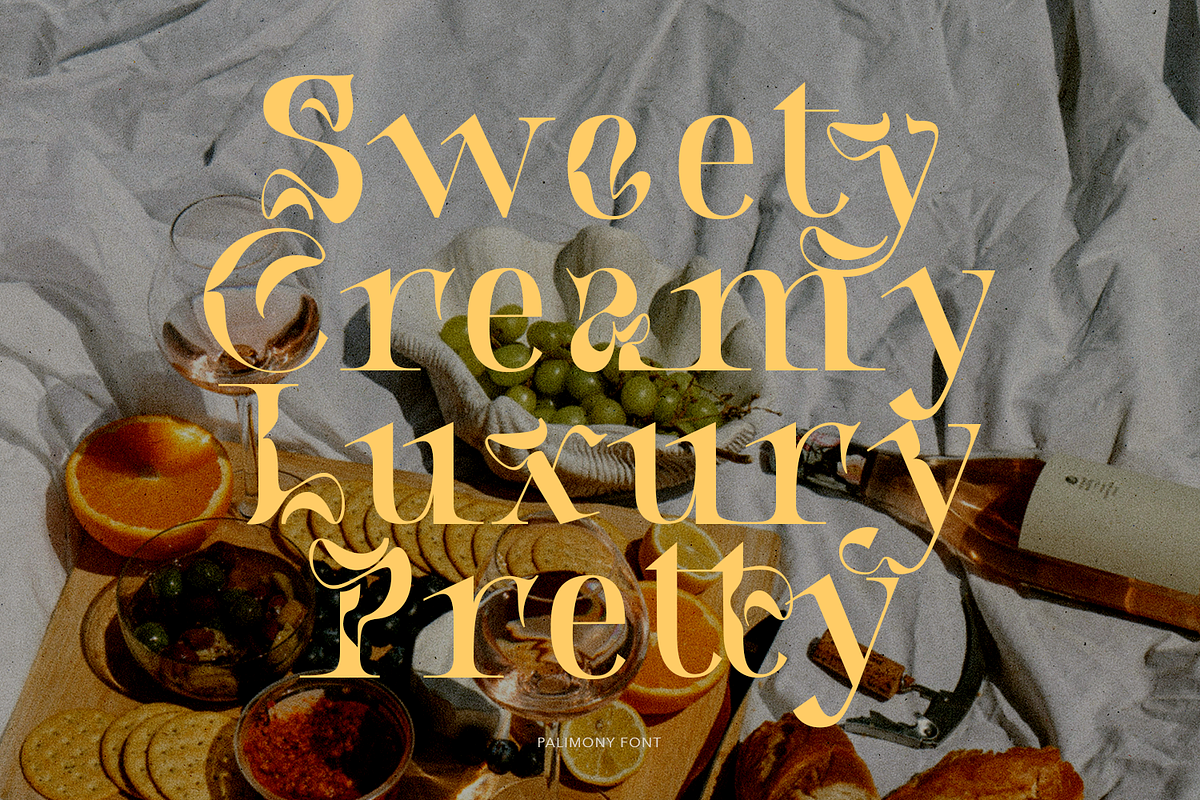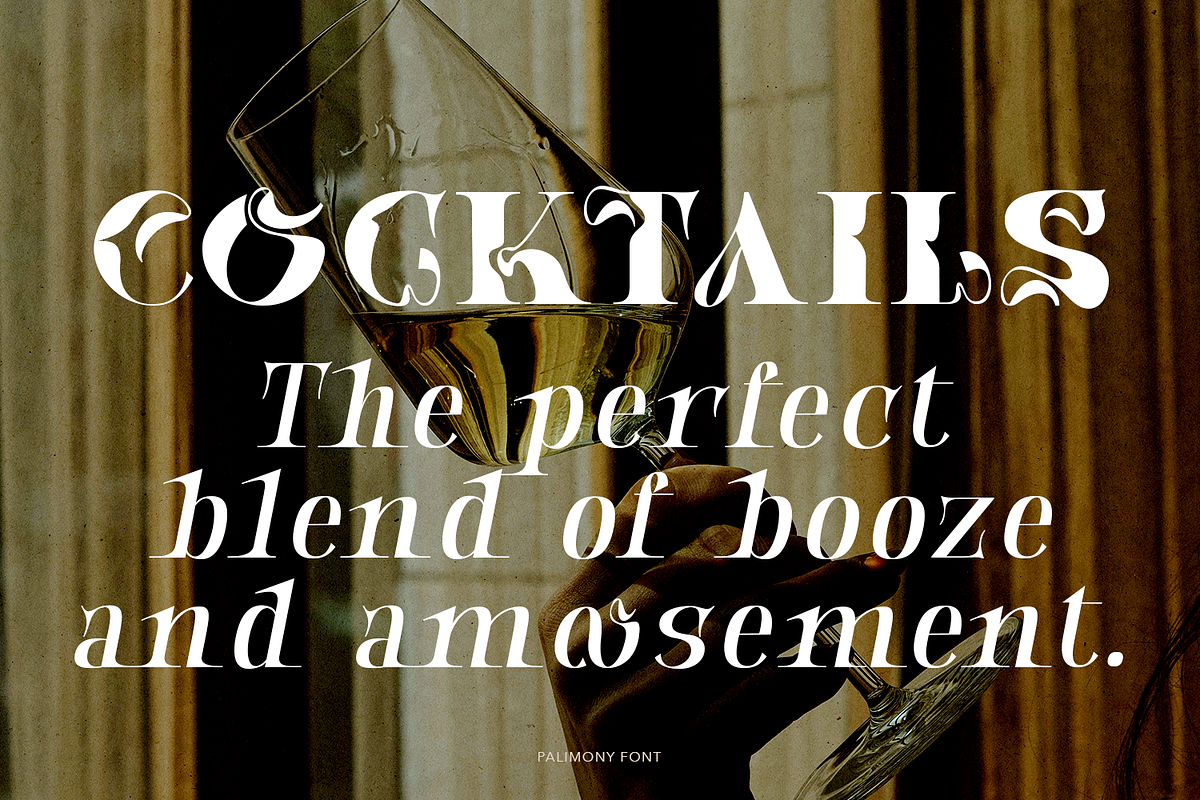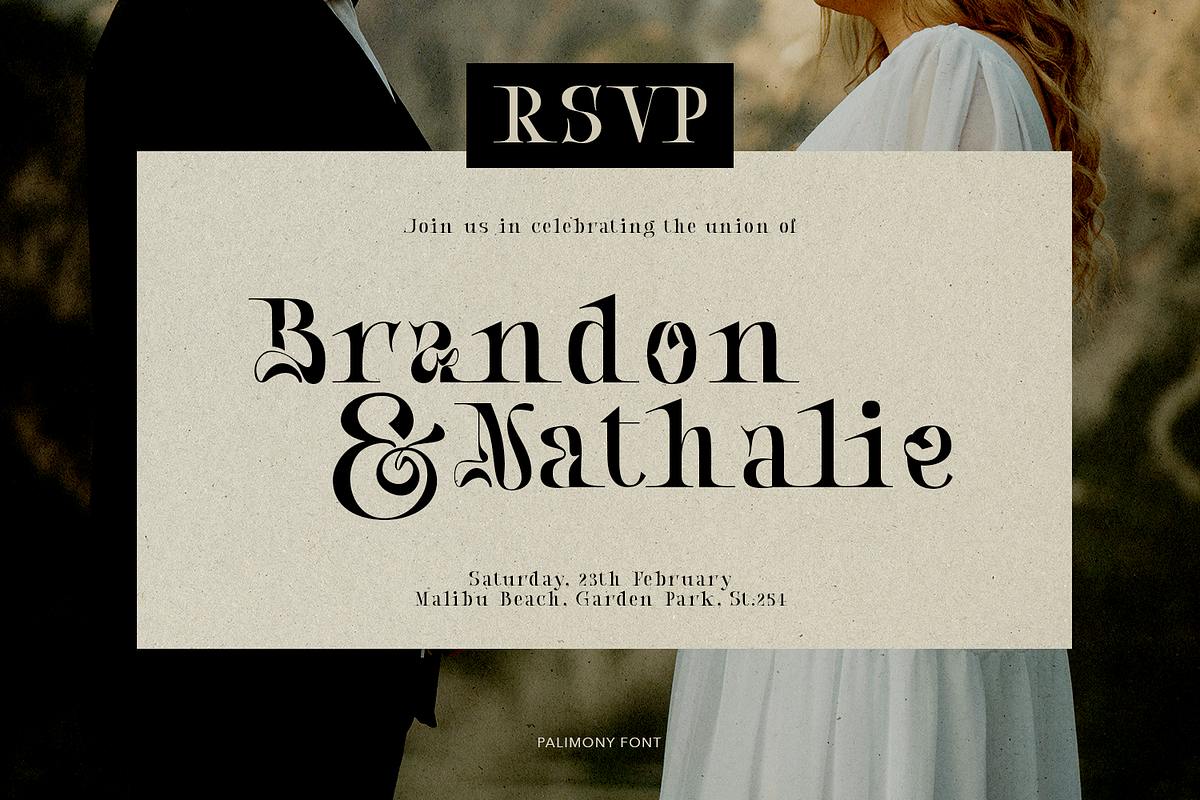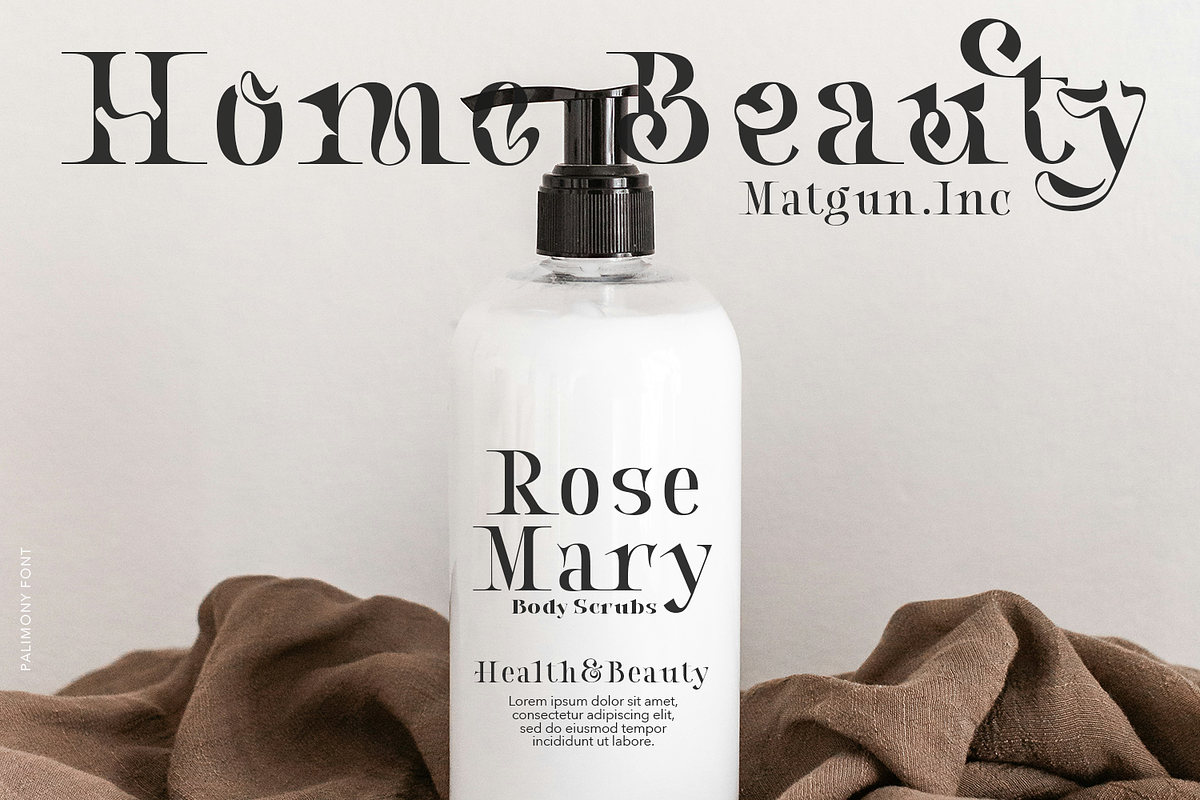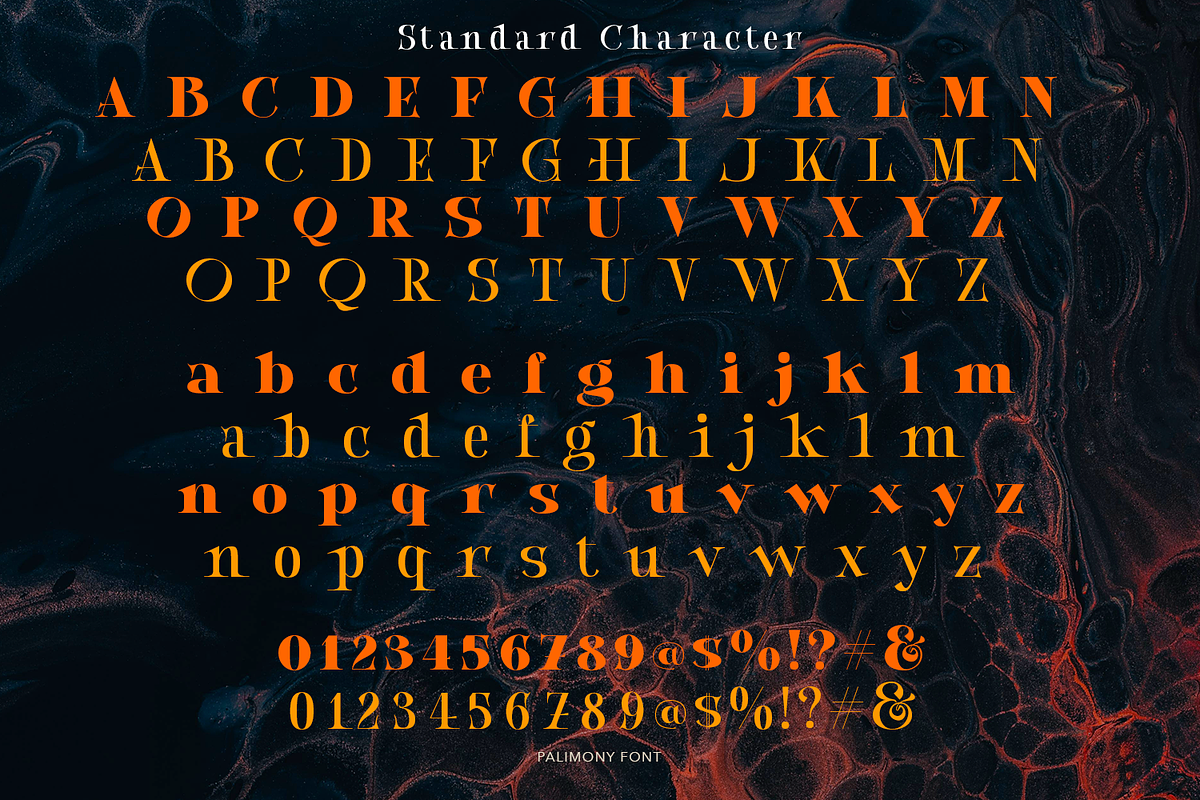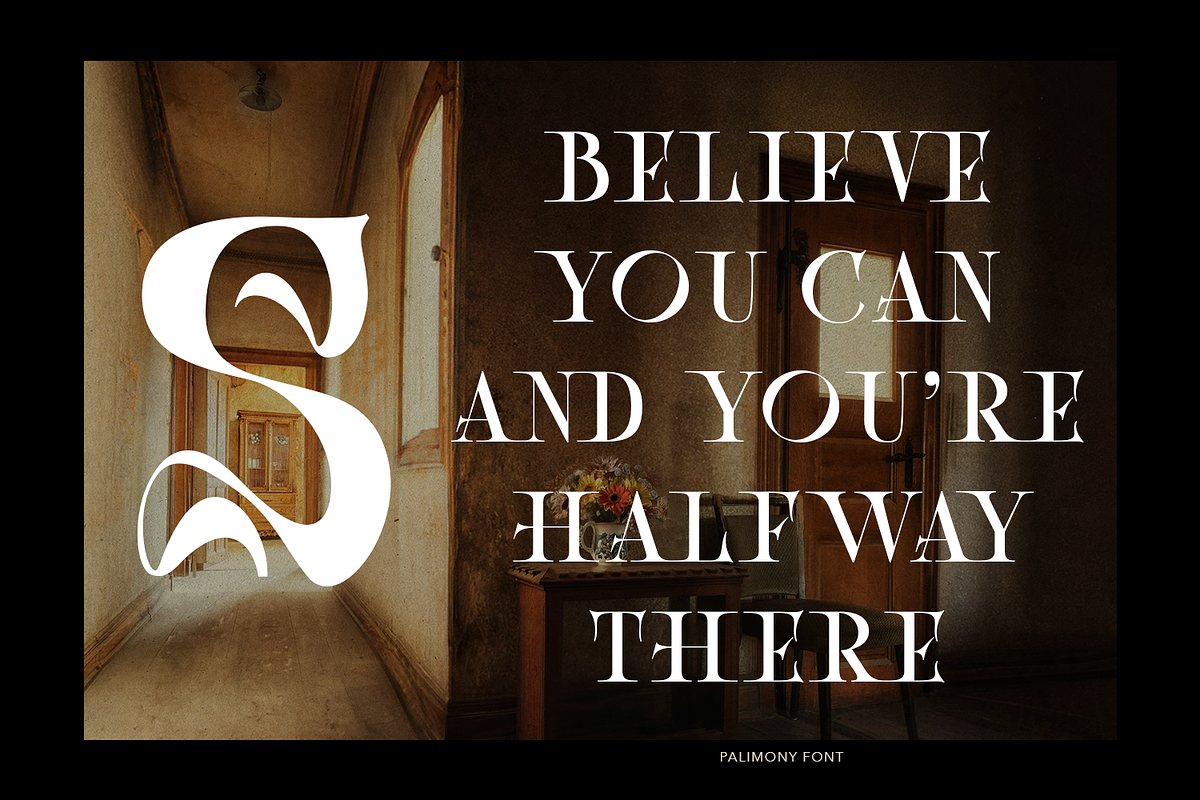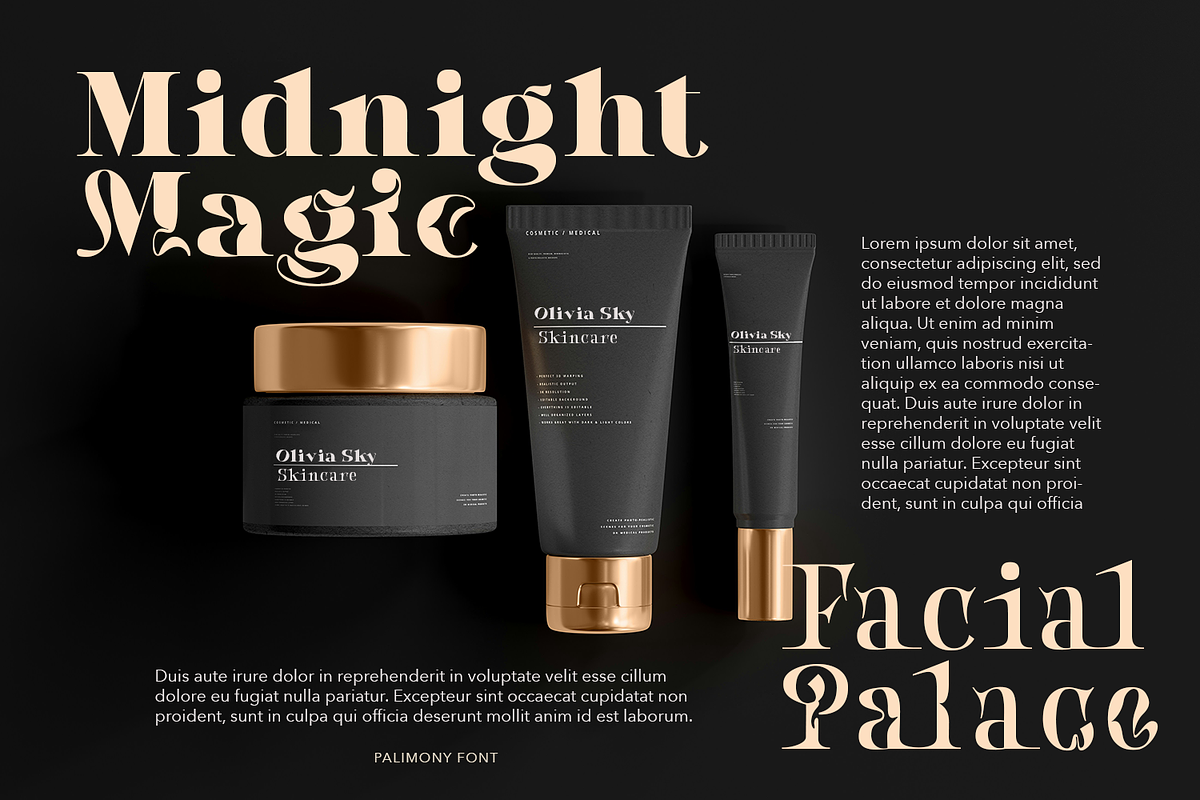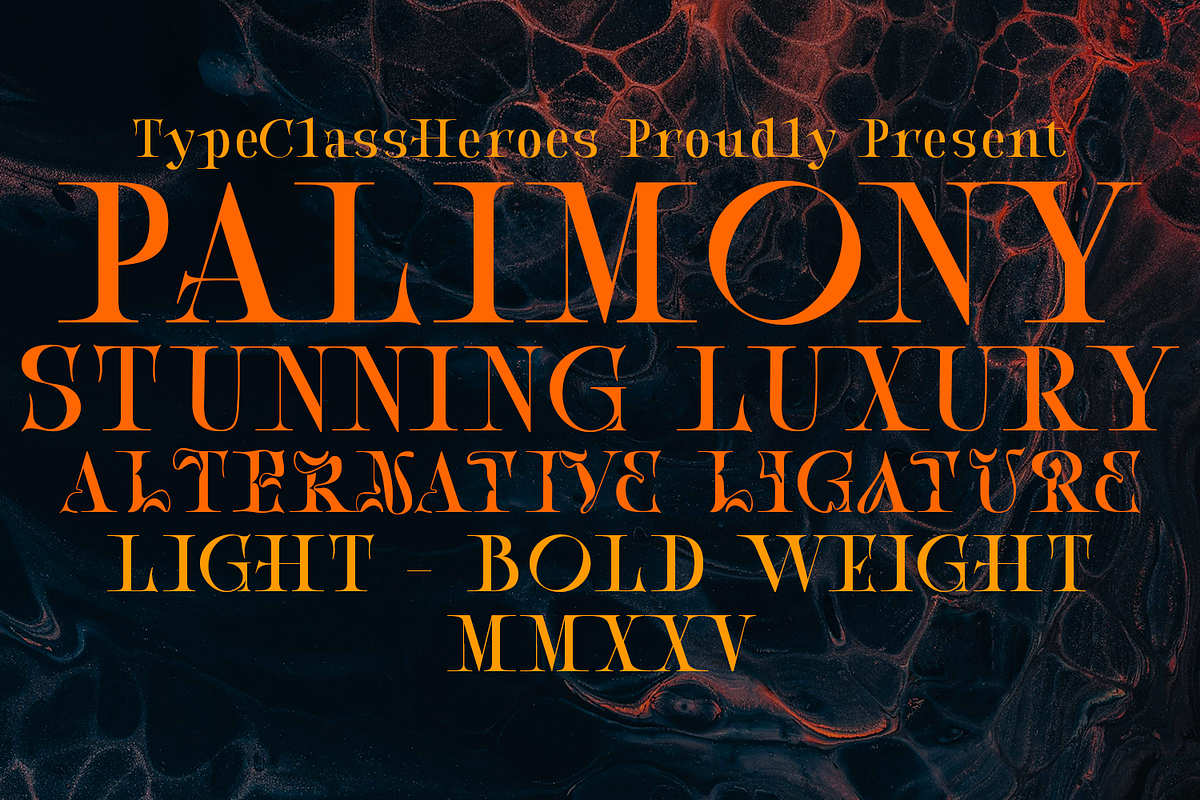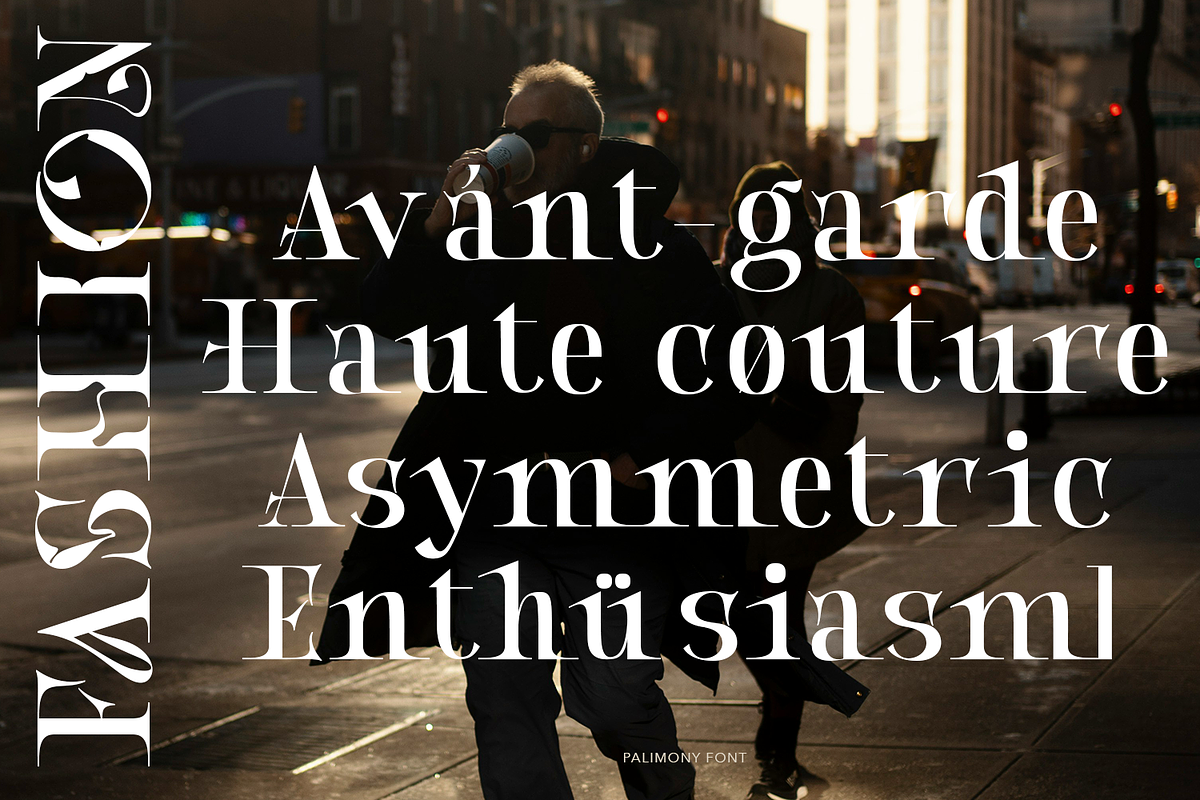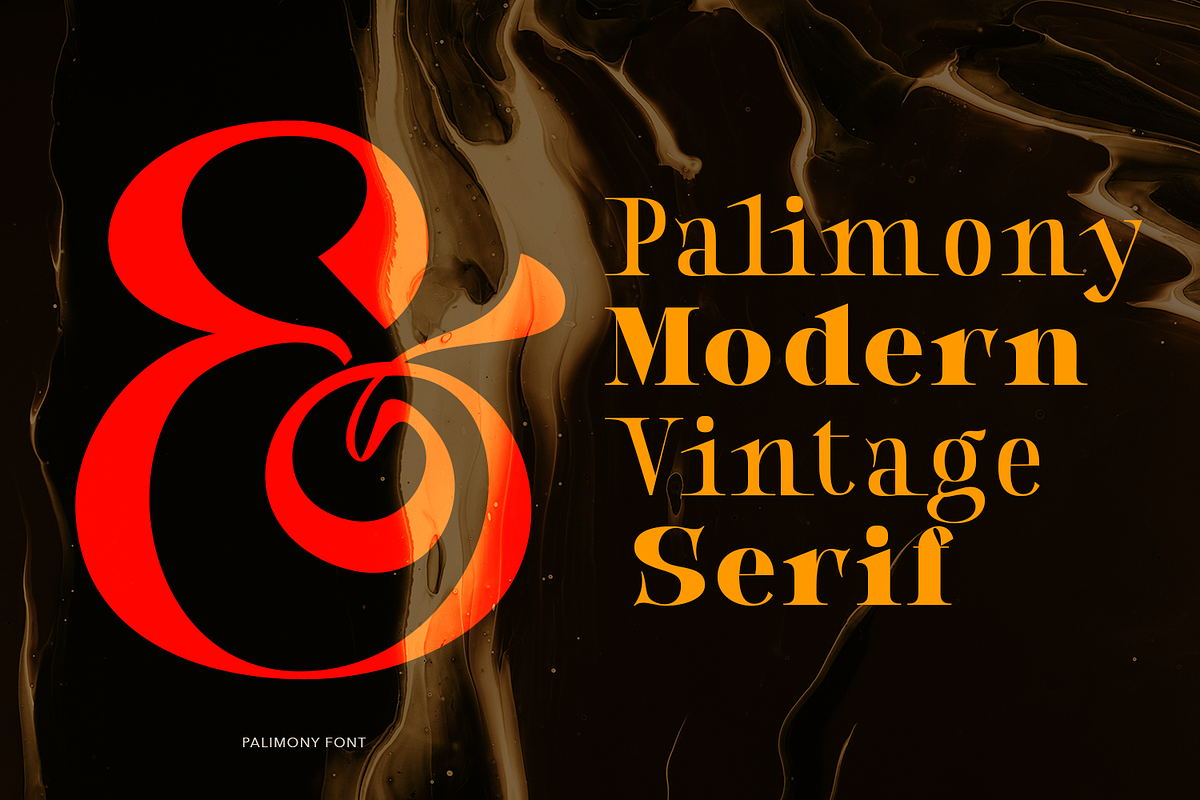
Palimony Luxury Serif
Palimony is a family serif of light and bold that makes this font ideal for logos, headlines, and other projects that require a refined and professional font. Elegant condensed display font that is perfect for creating sleek and modern classic feels designs. It features multiple alternates and ligatures making it a versatile choice.